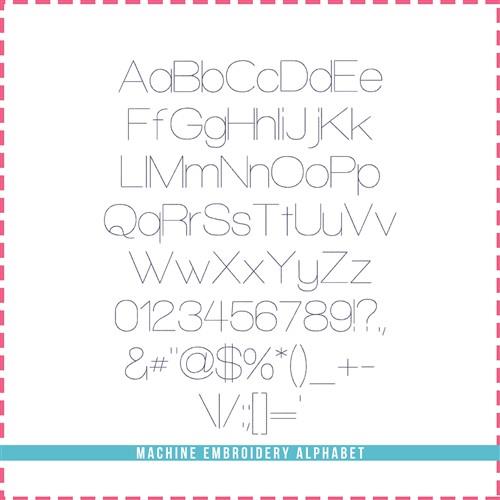
Maya Kreations is happy to present Walking Font Embroidery Font - Minimalistic Modern Design - 17 Sizes 0.25" TO 7" - PES, DST & 8 formats machine embroidery font which has Minimalistic machine embroidery font suitable for various projects like home decor or apparel. The clean design of the word 'Walking' stands out on items like bags. Formats available include PES, DST, and 8 other machine formats. included. If you would like to view more embroidery fonts and alphabets please search our embroidery fonts page.
Walking Font Embroidery Font - Minimalistic Modern Design - 17 Sizes 0.25" TO 7" - PES, DST & 8 formats